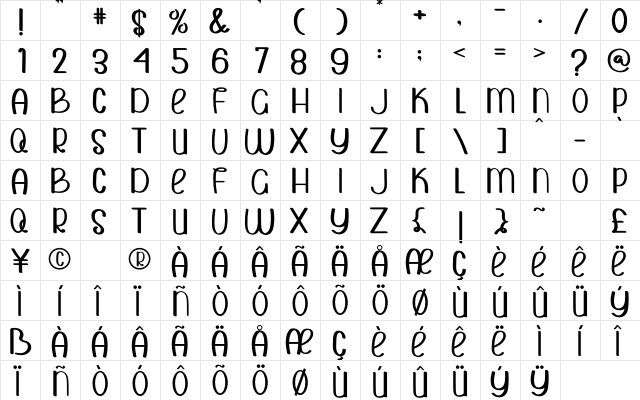
Smile Summer Regular
Design Context for Smile Summer Typeface
Smile Summer is a composed and adaptable typeface that performs quietly and consistently across a wide range of design contexts.
Pro Tip: Use Smile Summer in both headline and body roles to test its range before committing to a single application.